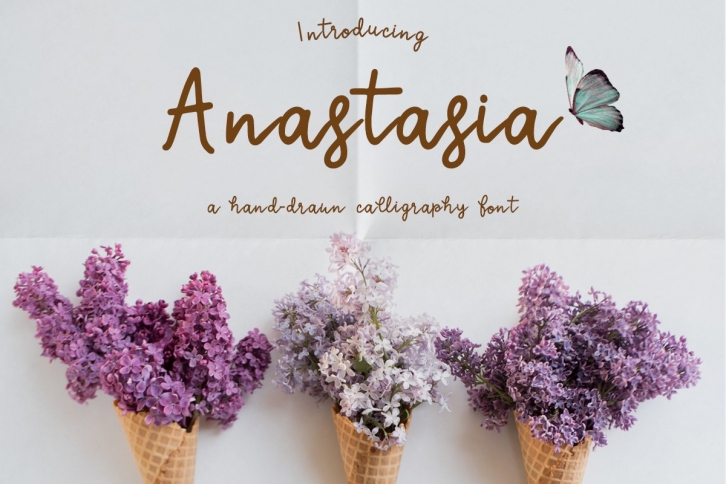
Introducing Anastasia: a calligraphic font!
This is a hand-drawn calligraphic font perfect for greeting cards, packaging, branding, social media and more!
As the nature of the characters is hand-drawn some "wonky" lines might be found which helps to add another touch of organic in the font that resonates with my personal style!